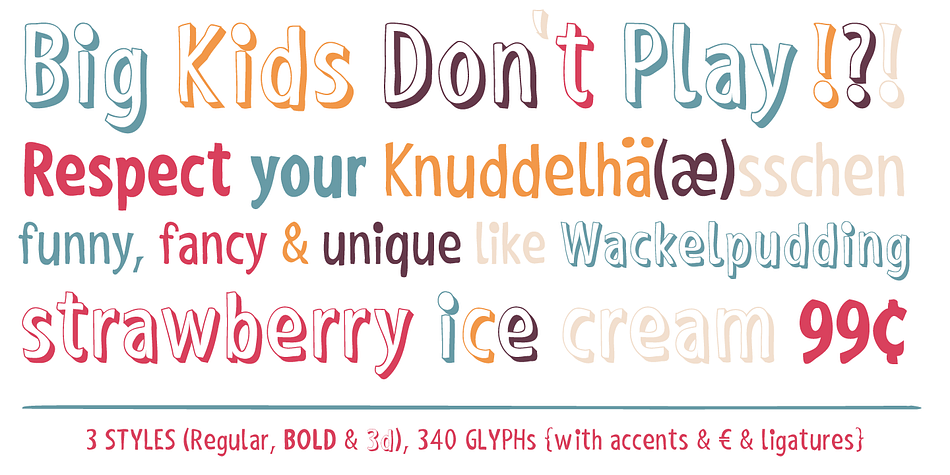
Shaky Hand Some Comic
Designed by Manuel Viergutz, Shaky Hand Some Comic is a hand display and kids font family. This typeface has three styles and was published by Typo Graphic Design.
The childlike and warm character and the cute, huge dots (punctuation  amongst others) give the Shaky Hand Some Comic a high recognition value and uniqueness.
This family features OpenType features with 340 glyphs, alternative letters and ligatures (with accents & €) & 3 styles (regular, bold & 3D).
The childlike and warm character and the cute, huge dots (punctuation amongst others) give the Shaky Hand Some Comic a high recognition value and uniqueness.
This family features OpenType features with 340 glyphs, alternative letters and ligatures (with accents & €) & 3 styles (regular, bold & 3D).